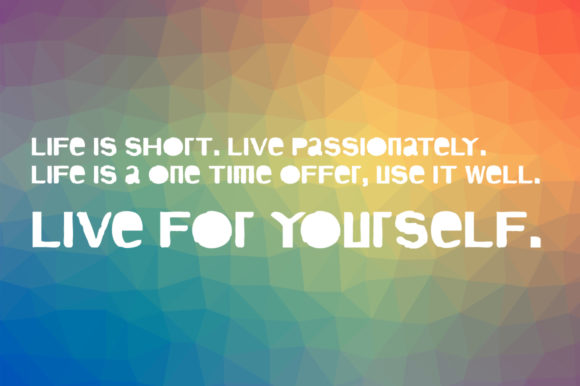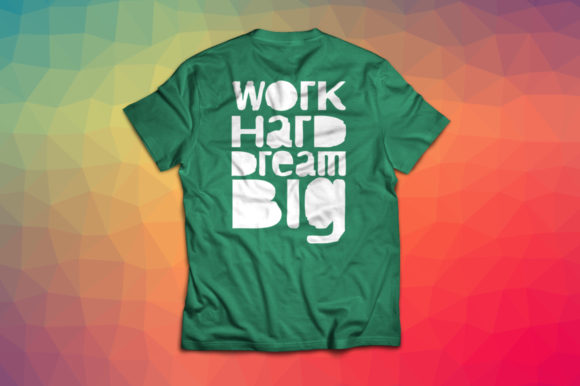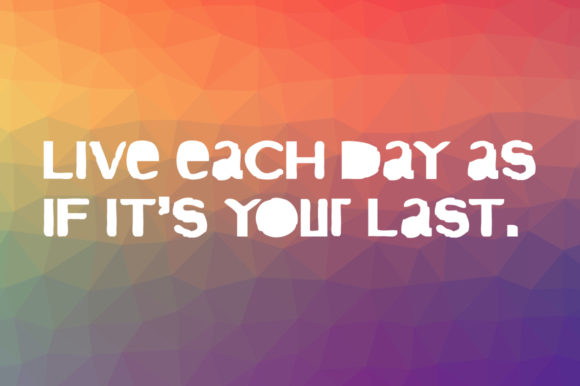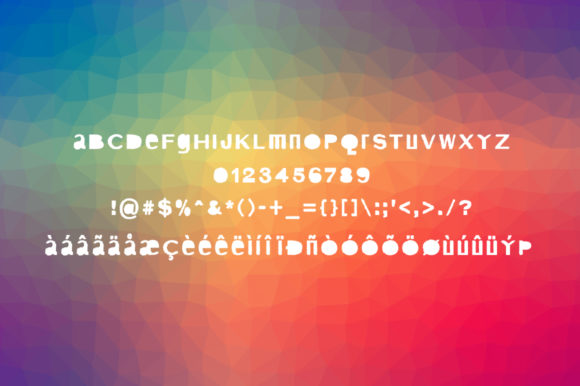
Introducing the Perfect Harmony of Creativity: Aquiver Next Font
Have you ever been in the midst of a creative project, pouring your heart and soul into it, only to feel like something’s missing? That’s when the perfect font can make all the difference. Imagine being able to convey the exact mood and tone you envision with just a few strokes of a pen. That’s exactly what the Aquiver Next Font is designed to do.
Aquiver Next Font is a stunning display font that’s perfect for a wide range of applications, from stationery and logos to print designs, website headers, and even music covers. Its versatility makes it an invaluable tool for designers looking to add a touch of sophistication and elegance to their work.
Aquiver Next Font Key Features
- Font Family: Aquiver Next Font is a sans-serif typeface, designed for digital use. It comes in 4 font styles: Regular, Bold, Italic, and Bold Italic.
- Character Set: Supports a wide range of languages, including Latin, Cyrillic, and Greek alphabets, with over 1,200 glyphs.
- Unique Characteristics: Aquiver Next Font features a unique blend of geometric and organic shapes, resulting in a clean and modern aesthetic that is both legible and visually appealing.
Aquiver Next Font Review
As a designer, I was excited to dive into the Aquiver Next Font and see what it had to offer. Overall, I’d say it’s a solid addition to any font library.
- Beautiful, fluid curves: The Aquiver Next Font has some stunning, organic shapes that are perfect for creating a sense of movement and energy.
- Legibility: The font is highly legible, even at smaller font sizes, making it ideal for body text and other situations where readability is key.
- Highly customizable: The font comes with a wide range of weights and styles, allowing you to tailor the look and feel to suit your specific design needs.
- Lack of consistency: While the font has some beautiful elements, it can feel a bit disjointed in certain areas, with some letterforms feeling more polished than others.
- Not ideal for headlines: While the font is great for body text, I found it didn’t quite have the same level of impact and drama as other fonts when used for headlines.
While the Aquiver Next Font may not be a game-changer, it’s a solid, reliable choice for designers looking for a versatile and highly legible font. With a little creativity and experimentation, it’s easy to get the most out of this font and create some truly stunning designs.
Aquiver Next Font is ideal for:
- Body text for blogs and articles